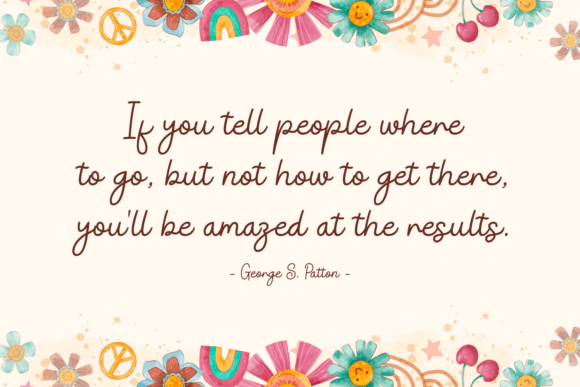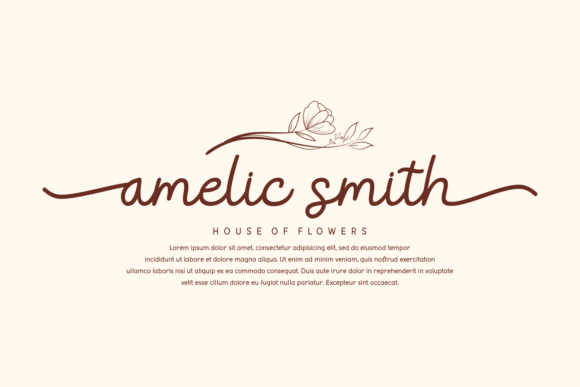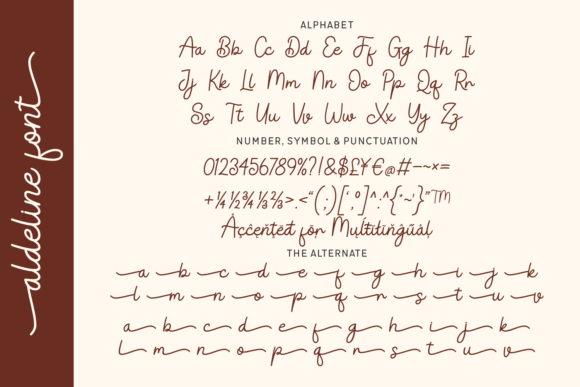
Aldeline Font: Elevate Your Designs with Elegance and Sophistication
In the world of typography, fonts play a crucial role in conveying the tone and personality of a design. For designers and crafters seeking a stylish and elegant font, Aldeline is an excellent choice. This monoline script font boasts smooth, flowing lines that exude a friendly and sophisticated look, making it perfect for a variety of design applications.
The Characteristics of Aldeline Font
Aldeline is a modern script font that features connected letters, creating a beautiful flow that adds a touch of creativity to any design. Its monoline construction gives it a sleek and contemporary look, while its elegant lines make it suitable for a range of projects, from invitations and quotes to logos and branding materials.
What Makes Aldeline Stand Out
- Smooth and Flowing Lines: Aldeline’s smooth lines create a beautiful, fluid look that is both elegant and modern.
- Connected Letters: The font’s connected letters give it a dynamic and artistic feel, perfect for designs that require a touch of sophistication.
- Ease of Readability: Despite its elegant and artistic look, Aldeline is easy to read, making it a practical choice for a variety of design applications.
- Versatility: Aldeline can be used for a range of projects, including invitations, quotes, logos, and more, making it a versatile addition to any designer’s toolkit.
Aldeline is an excellent choice for designers and crafters looking to add a touch of elegance and sophistication to their work. Whether you’re creating wedding invitations, crafting inspirational quotes, or designing logos and branding materials, Aldeline provides the perfect combination of style and readability.
Using Aldeline in Your Designs
- Pair with Complementary Fonts: Combine Aldeline with complementary fonts to create visual interest and add depth to your designs.
- Experiment with Colors: Aldeline looks stunning in a variety of colors. Experiment with different hues and shades to find the perfect combination for your design.
- Play with Sizes: Aldeline’s elegant lines look beautiful in a range of sizes. Experiment with different font sizes to create visual hierarchy and add emphasis to your design.
Aldeline is a stylish and elegant monoline script font that is perfect for designers and crafters seeking to add a touch of sophistication to their work. With its smooth, flowing lines, connected letters, and ease of readability, Aldeline is an excellent choice for a variety of design applications. Whether you’re creating invitations, quotes, logos, or branding materials, Aldeline is sure to elevate your designs and leave a lasting impression.